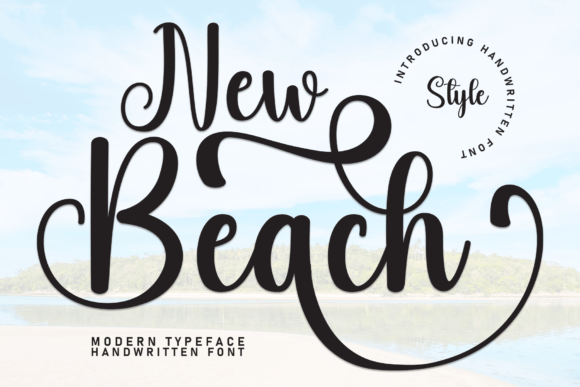
Embrace the beauty of handwritten elegance with New Beach Font, a captivating script font family that will transform your portfolio designs into breathtaking masterpieces. This font is more than just letters; it's an artistic expression that breathes life into your creations.
Picture this: your portfolio showcasing an array of projects, each adorned with the graceful strokes of New Beach Font. The smooth curves and subtle flourishes of this font will add a touch of sophistication and charm to your work, making it stand out from the crowd.
As you glide through the pages of your portfolio, you'll experience the versatility of New Beach Font. Whether it's a personal project, a client's brief, or a creative experiment, New Beach Font effortlessly adapts to your vision, conveying your ideas with elegance and clarity.
With New Beach Font, you're not just creating designs; you're painting a story. Each letter becomes a brushstroke, each word a verse, and each project a masterpiece. Indulge in the creative freedom that New Beach Font offers and watch your portfolio transform into a testament to your artistic prowess.
So why settle for ordinary fonts when you can elevate your designs with the grace and elegance of New Beach Font? Embrace the beauty of handwritten artistry and let your portfolio shine with a touch of timeless charm.